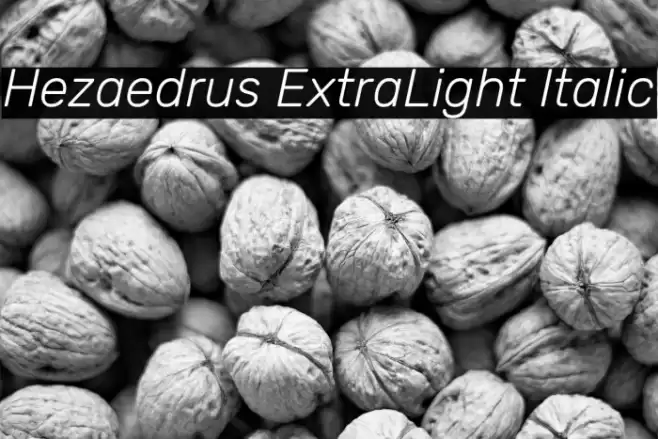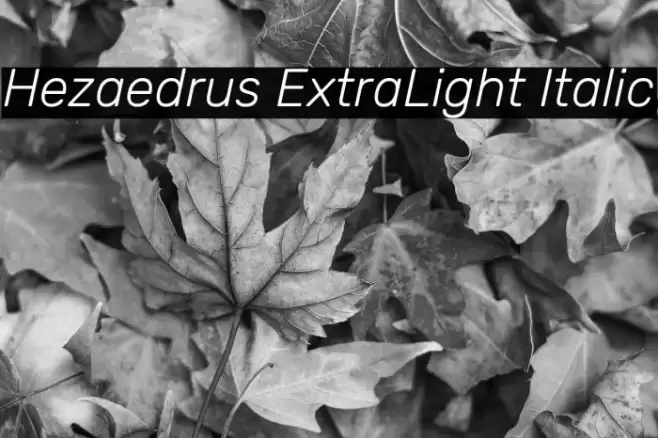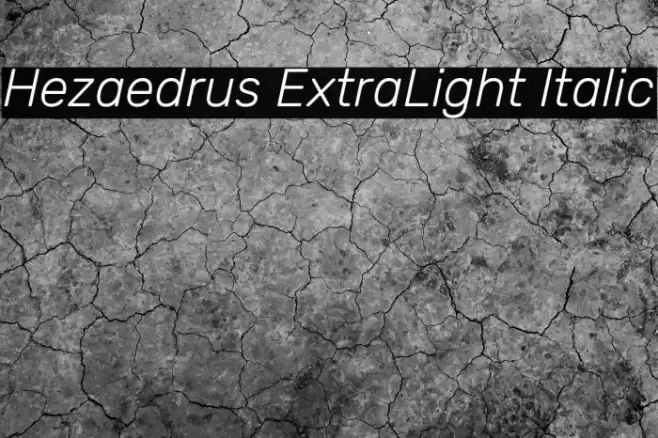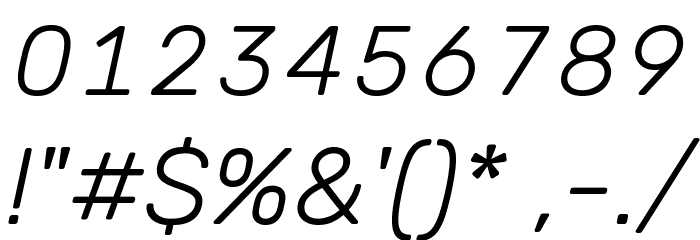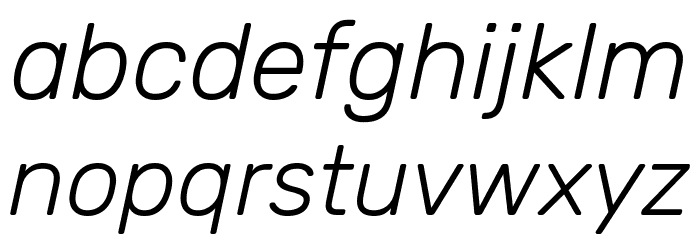
Hezaedrus ExtraLight Italic Font
Hezaedrus ExtraLight Italic Description
This font features a sleek and modern design with an italicized style that adds a sense of motion and elegance. The characters are crafted with an extra light weight, giving them a delicate and airy appearance. The sans-serif structure ensures a clean and minimalist look, making it suitable for contemporary designs. The font maintains a consistent stroke width, resulting in low contrast, which enhances readability. The spacing between characters is normal, providing a balanced and harmonious text flow.
A sleek, extra light, italic sans-serif font with a modern and elegant style from Sans Serif fonts.
- Proposed Projects: Ideal for fashion magazines, modern branding, elegant invitations, and minimalist web design.